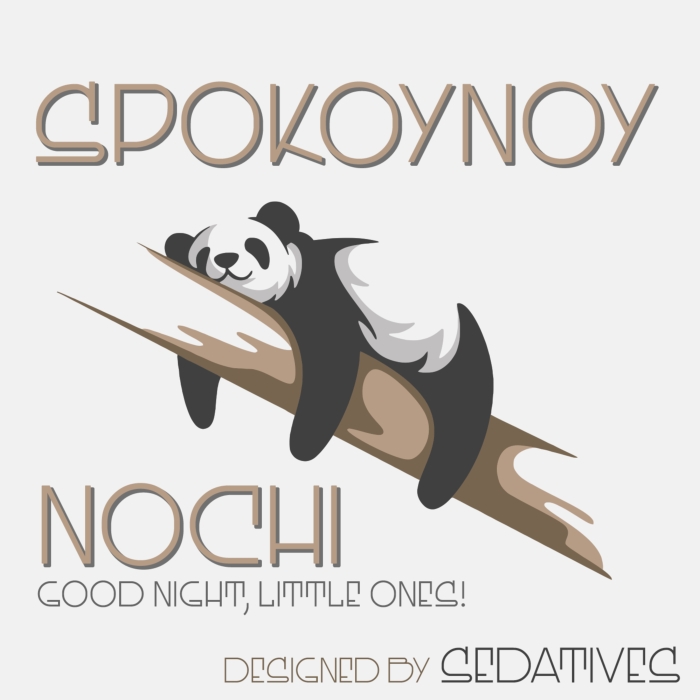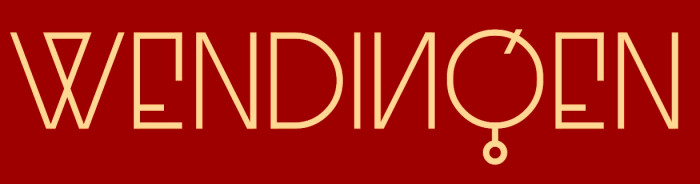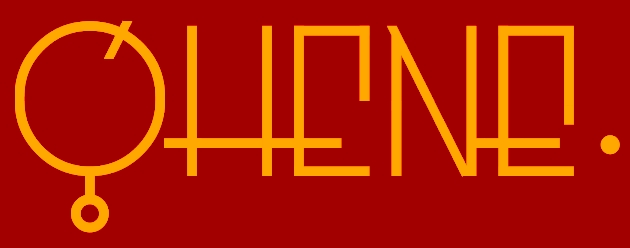
SPOKOYNOY NOCHI — Revival of famous 1920's Art-Deco lettering
☛ THE FONTSTRUCTION
Its sort of a reimaginative digitized revival of the famous lettering by Anton Kurvers, designed in 1927 for the Flemish folk theatre in dedication of Joh. de Meester jr. commissioned by Wendingen for the 3rd issue in the 8th series of this famous magazine. It is one of the many graphic designs by his hand. —Its a simple monolinear Art-Deco style unicase lettering with additional full size alphabet set of uppercase glyph alternate forms that is located in the Half Width And Full Width Forms Unicode block. Some global kerning was done, but extra pairs are still required…
☛ EXTRA NOTES ON THE ORIGINAL CREATOR
Antonius (Anton) Kurvers (The Hague, 23 July 1889 - Amsterdam, 29 January 1940) was a Dutch artist. He was a draftsman, lithographer, furniture designer, textile artist, decorative painter, industrial designer, graphic designer and book cover designer that became a prolific letterer in the public sector. Many of his lettering as well as other works can still be seen in public and on buildings throughout the city of Amsterdam. Kurvers was the student of famous Dutch architect Hendrik Wijdeveld (1885-1987) and started during 1911-1914 as a painter of theatre sets in Paris. This was followed by years of stained glass design. After this period he discovered graphic design. In 1919 the Public Works Department of Amsterdam hired Kurvers, and this position Kurvers made an important mark on the design of municipal institutions. He designed various public objects such as the blue Municipal Giro-box in 1926 for Public Works in Amsterdam. He also designed a red Holland mailbox for the Dutch PTT in 1929, as well as a blue postal stamp machine in 1936.
☛ THE FAMOUS MAGAZINE
Wendingen (Dutch: Inversion or Upheaval, literally turns) "monthly magazine for building and decorating" was an architecture and art magazine that appeared from 1918 to 1932. It was a monthly publication aimed at architects and interior designers. A total of 116 issues were published and it served as a mouthpiece for the architect association Architectura et Amicitia (Architecture and Friendship). Its association with Architectura et Amicitia didn't meant the content would at all be limited to just architecture, and specific special attention was paid to both visual and applied arts.
☛ In Modern architecture of the 1920s were three notable movements.
Cubist, Expressionist, Functionalism and Constructivist architecture. All three respectively had their dedicated artistic movements, and typograpy or lettering was no stranger within these movements. Wendingen earned recognition not only through its content, but also by its remarkable square format, but probably most nowadays in modern times for the striking typographic content by artists such as: H. Wijdeveld, A. Kurvers, E. Lissitzky, V. Huszar and many more. Editor-in-chief was Hendricus Theodorus Wijdeveld, another famous Dutch architect and graphic designer. Initially the magazine was an important platform for the Dutch expressionism movement, also known as the Amsterdam School, but later endorsed a post-expressionist spirit, also known as the New Objectivity and was a reaction against expressionism. The primary aim of Wendingen was to enhance the aesthetic quality of architecture and to serve as a source of inspiration for its members.
Wendingen was influential on Expressionist architecture, especially in The Netherlands.
—Another similar Dutch magazine from that era was called De Stijl, but it was more influential on Swiss Style and International Typographic Style.
The art deco elements are well executed, as is the rest of the font~